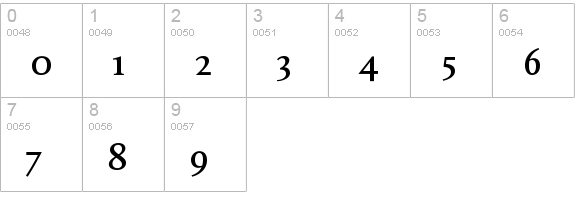
DTLAlbertinaTCaps-Medium is a balanced, medium-weight variant in the DTLAlbertinaTCaps typeface family \xE2\x80\x94 well suited to sub-headlines, navigation, and balanced editorial work.
The DTLAlbertinaTCaps-Medium font is a versatile and elegant typeface that exudes sophistication and style. Its medium weight strikes the perfect balance between readability and impact, making it suitable for a wide range of design projects. With its distinctive condensed uppercase letterforms, this font commands attention and adds a touch of class to any text. What makes the DTLAlbertinaTCaps-Medium font even more appealing is that it is available for free download at FontsMarket.com. This means you can easily access and use this high-quality font in your designs without any cost. Whether you're working on branding, editorial design, or any other creative project, the DTLAlbertinaTCaps-Medium font is a fantastic choice that will elevate your work to the next level. Download it today and add a touch of sophistication to your designs!